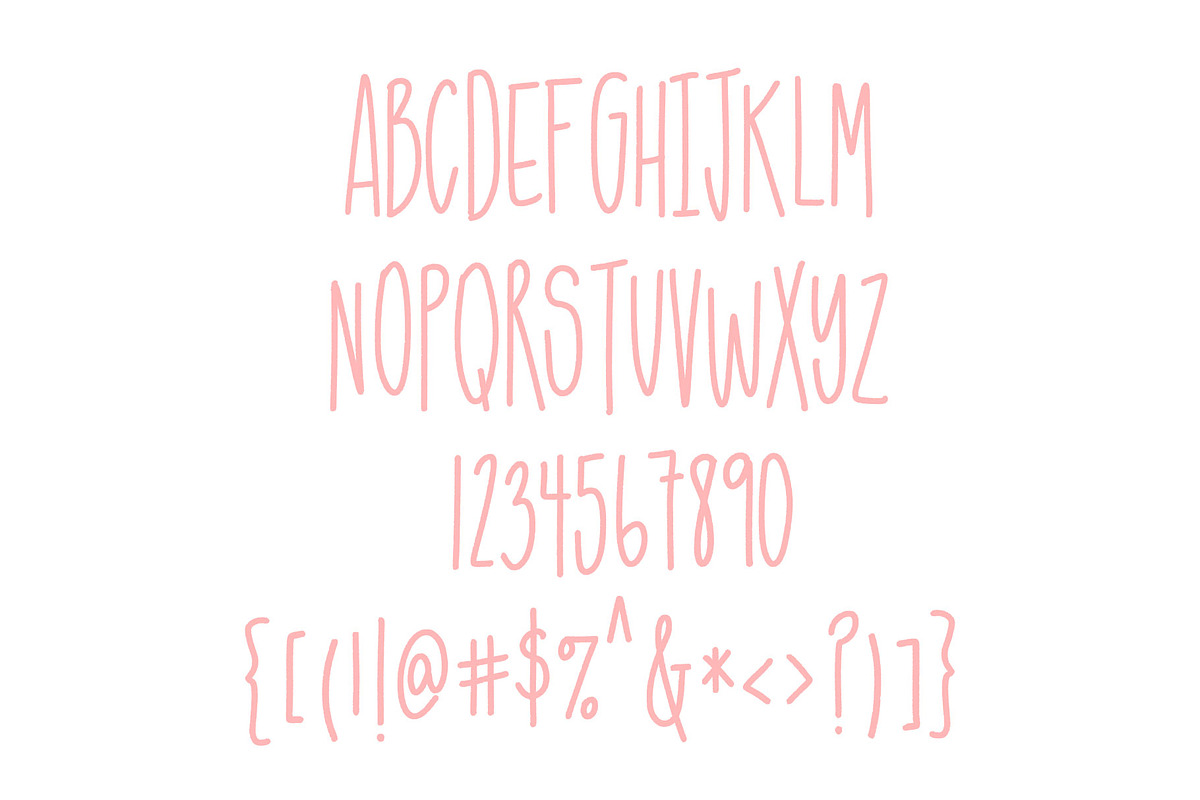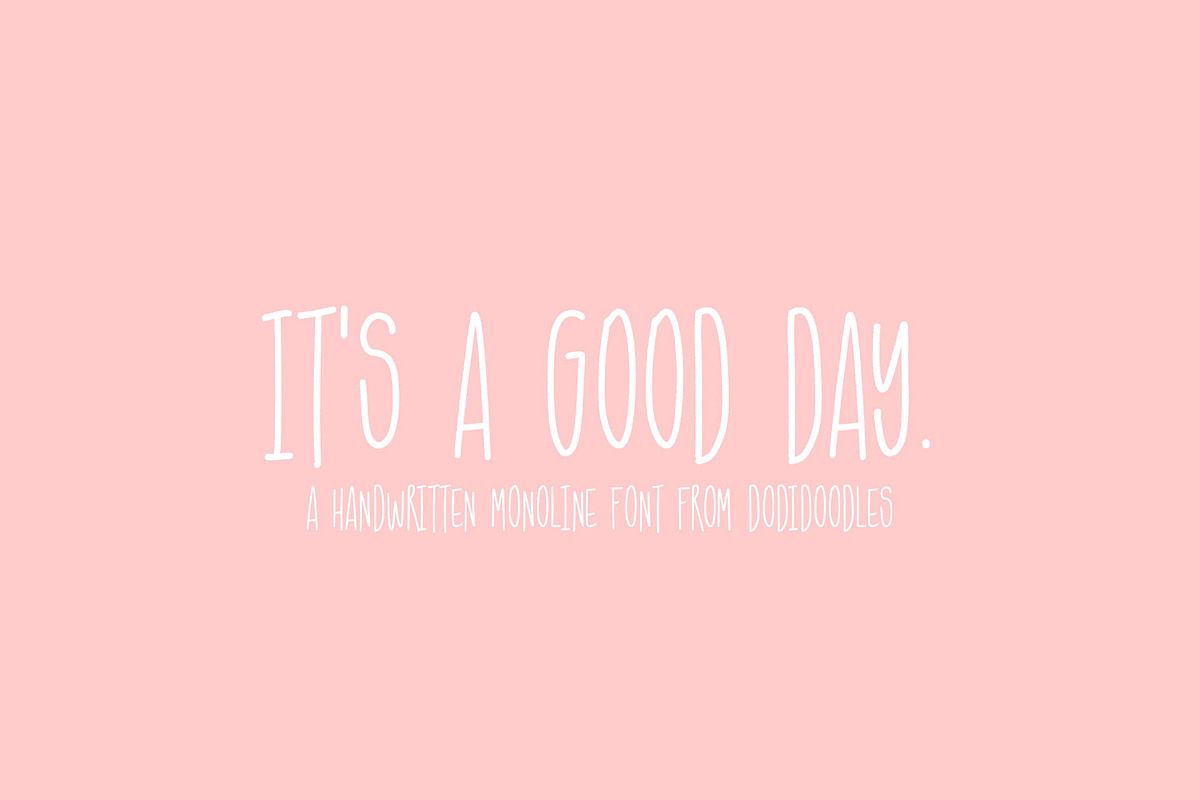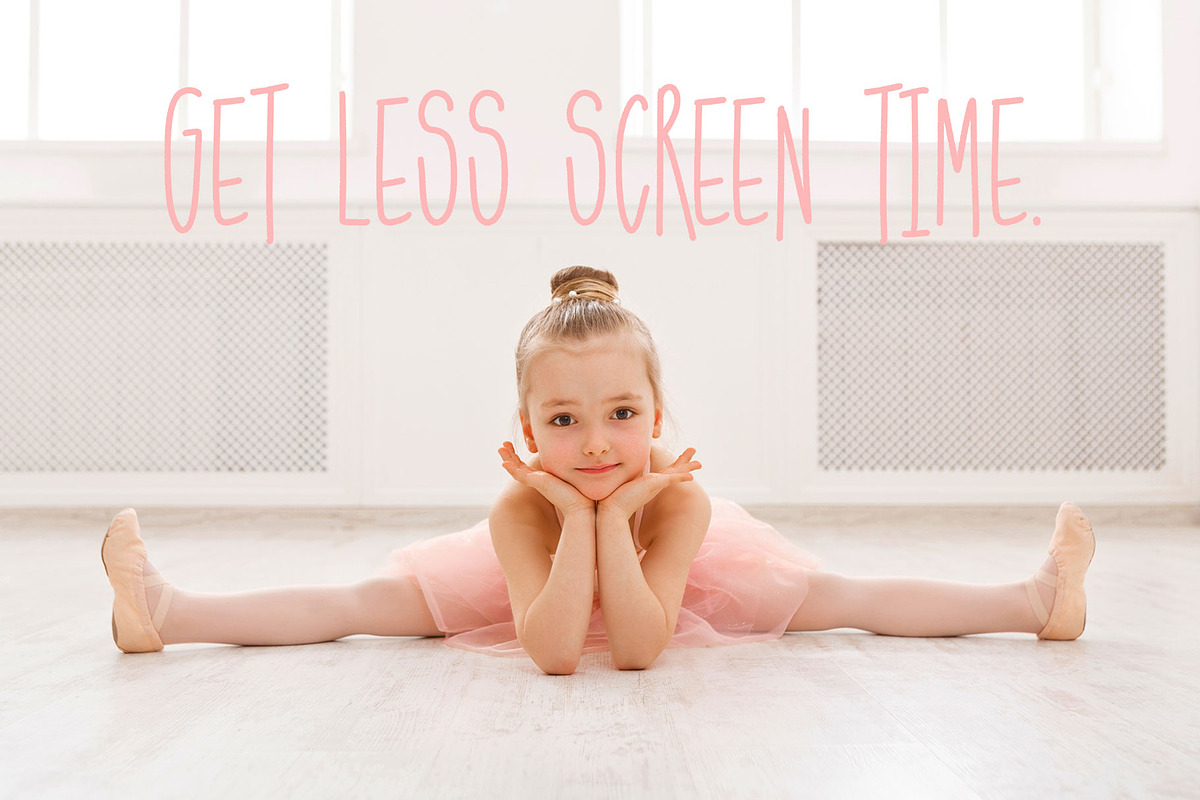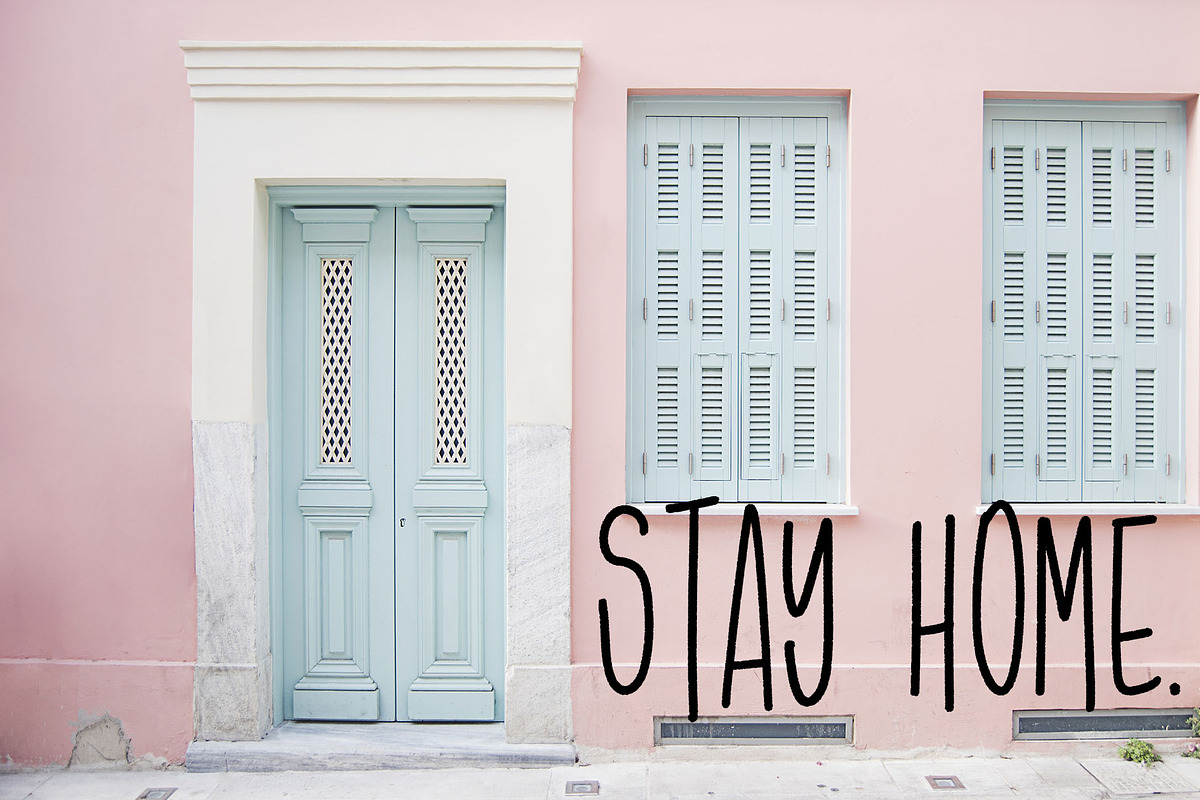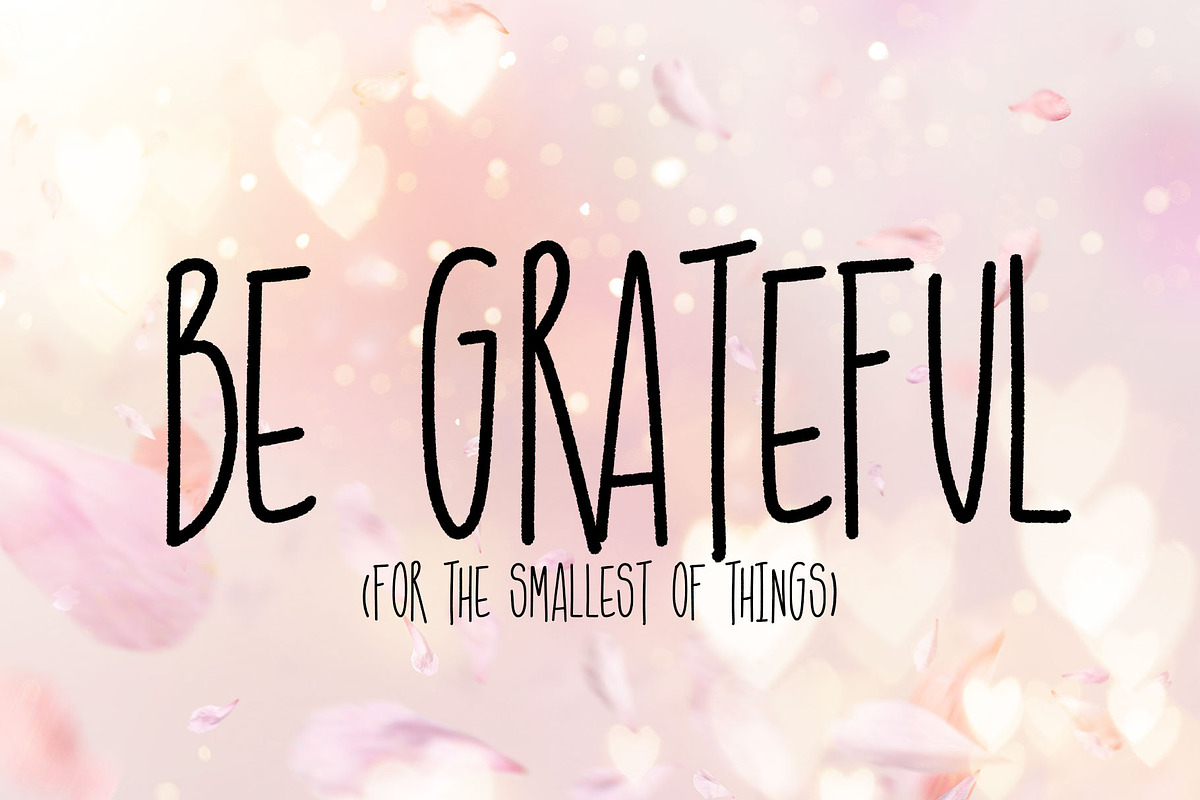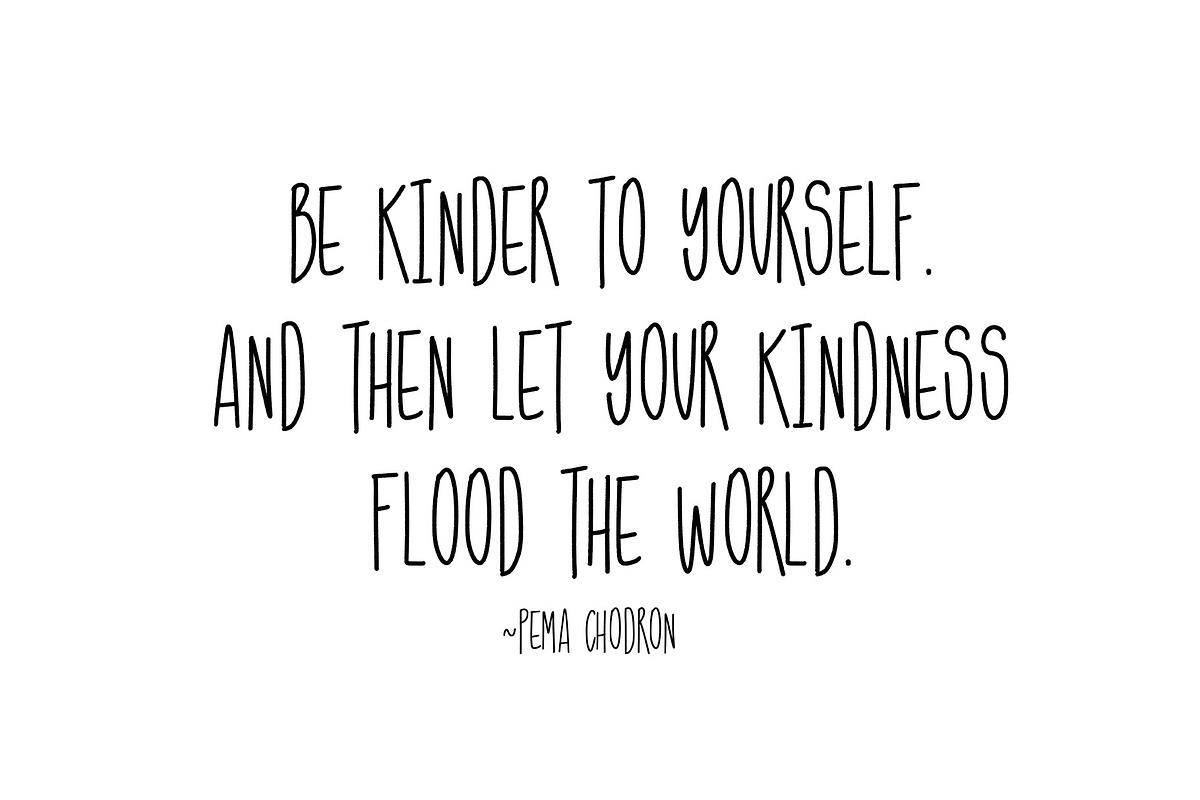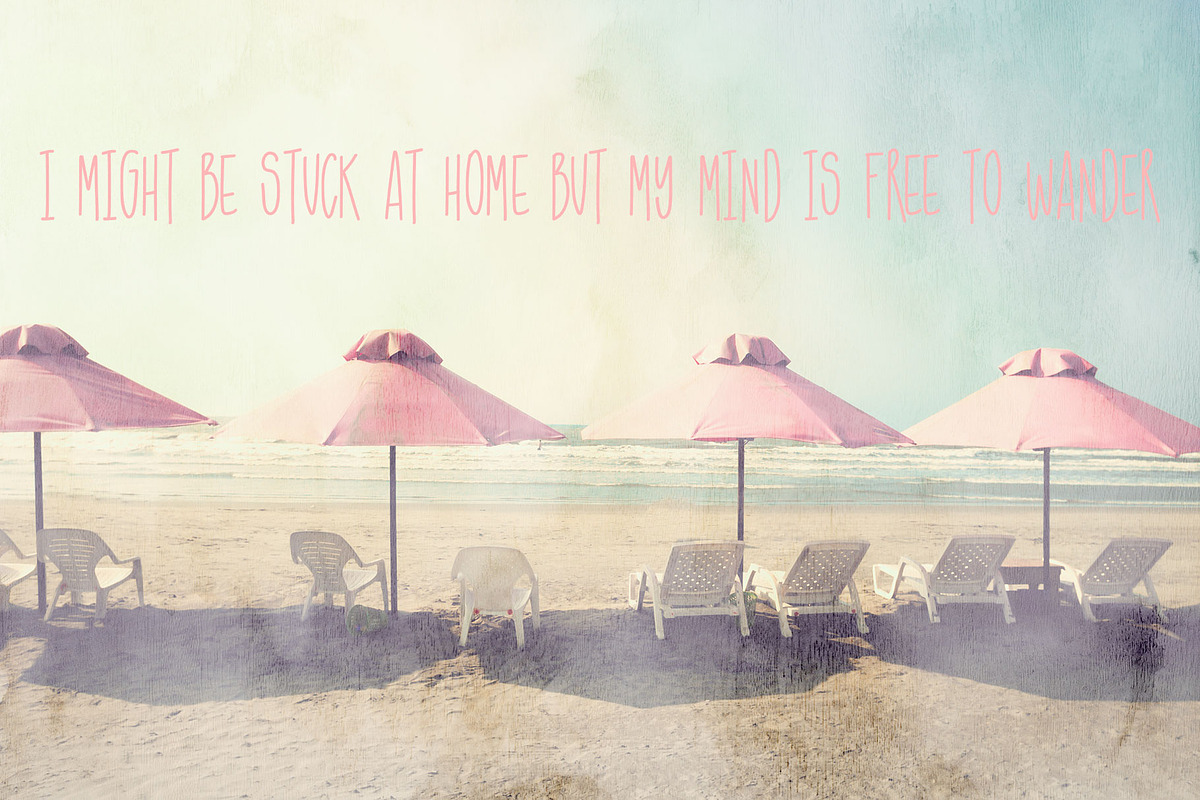
It's A Good Day Monoline Font
It's A Good Day
A handwritten monoline open type SVG font from dodidoodles. This handwritten font is all caps and can easily be used for quick projects or modern branding. It's playful style also makes it great for educators who want to brighten up the work they present to their students.